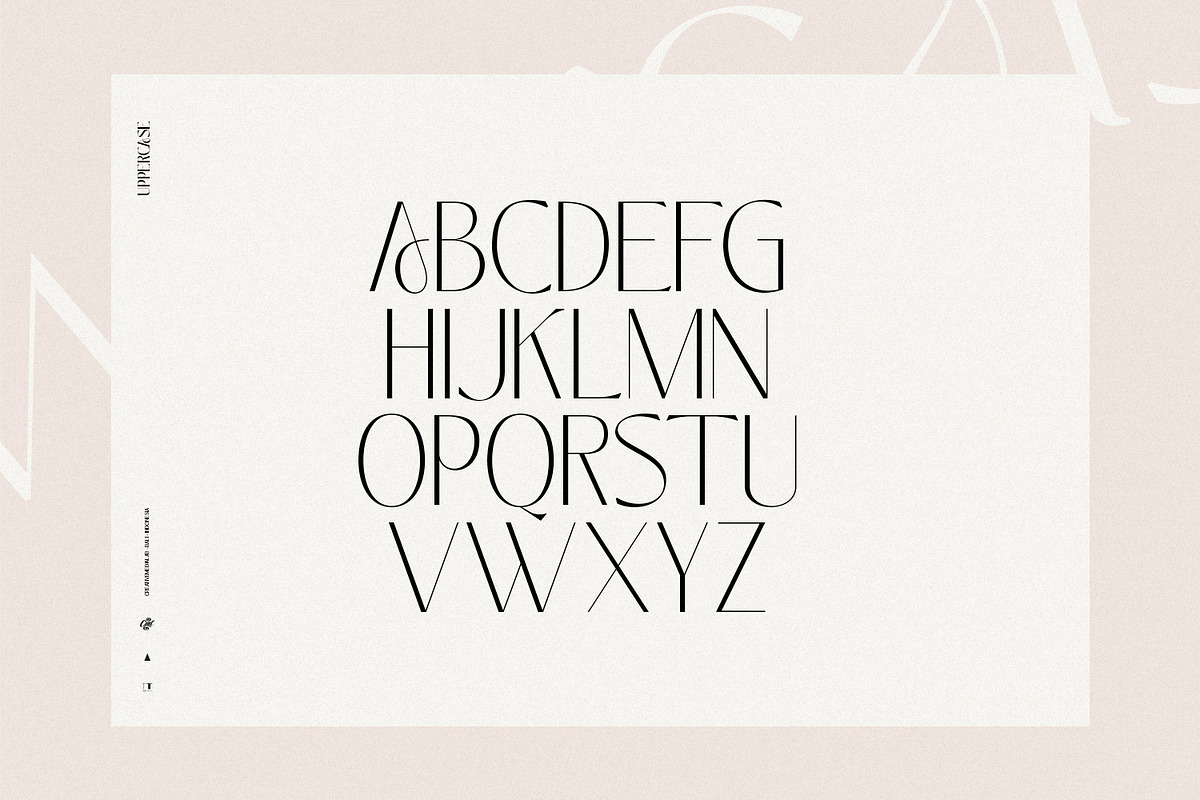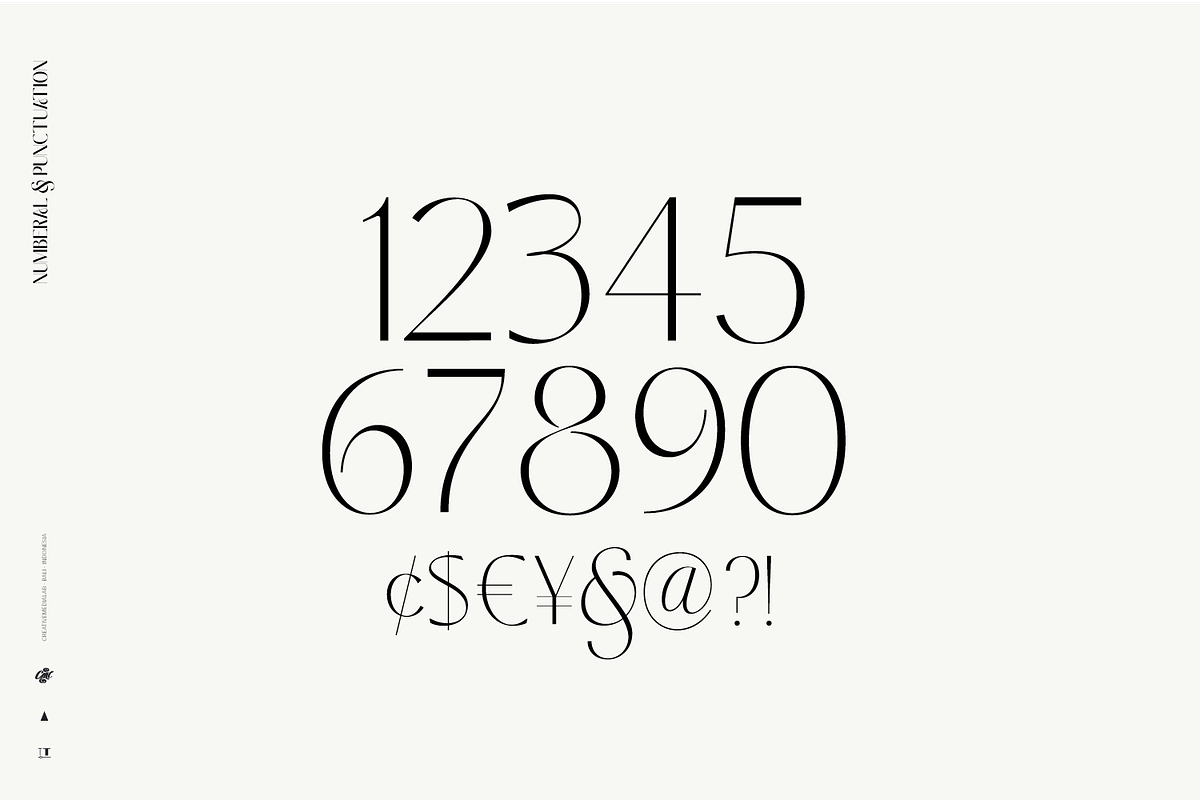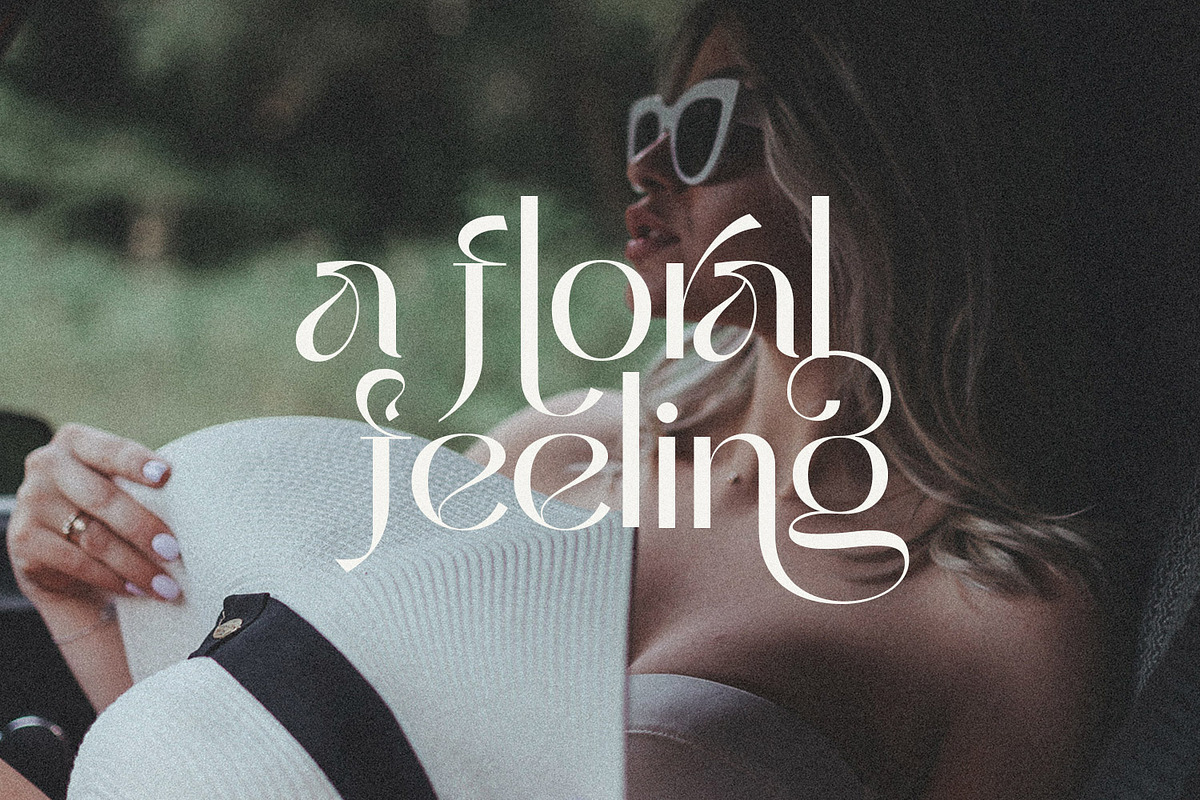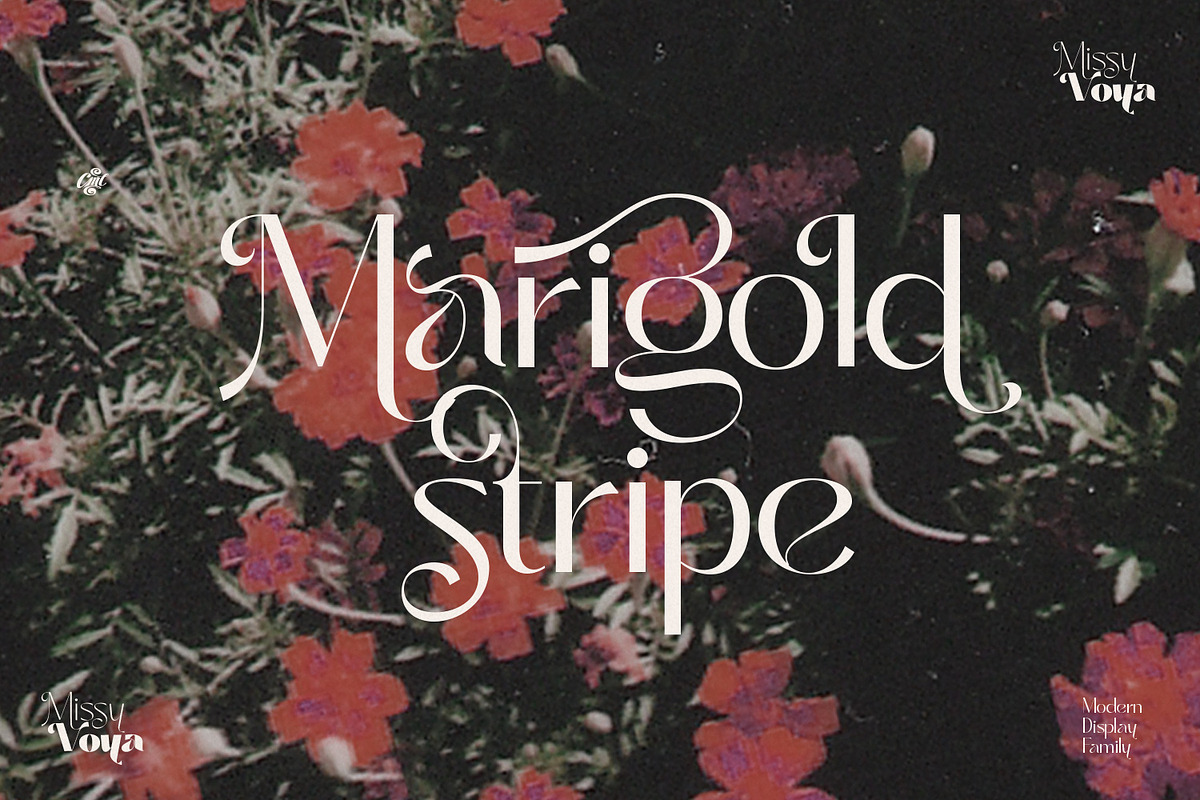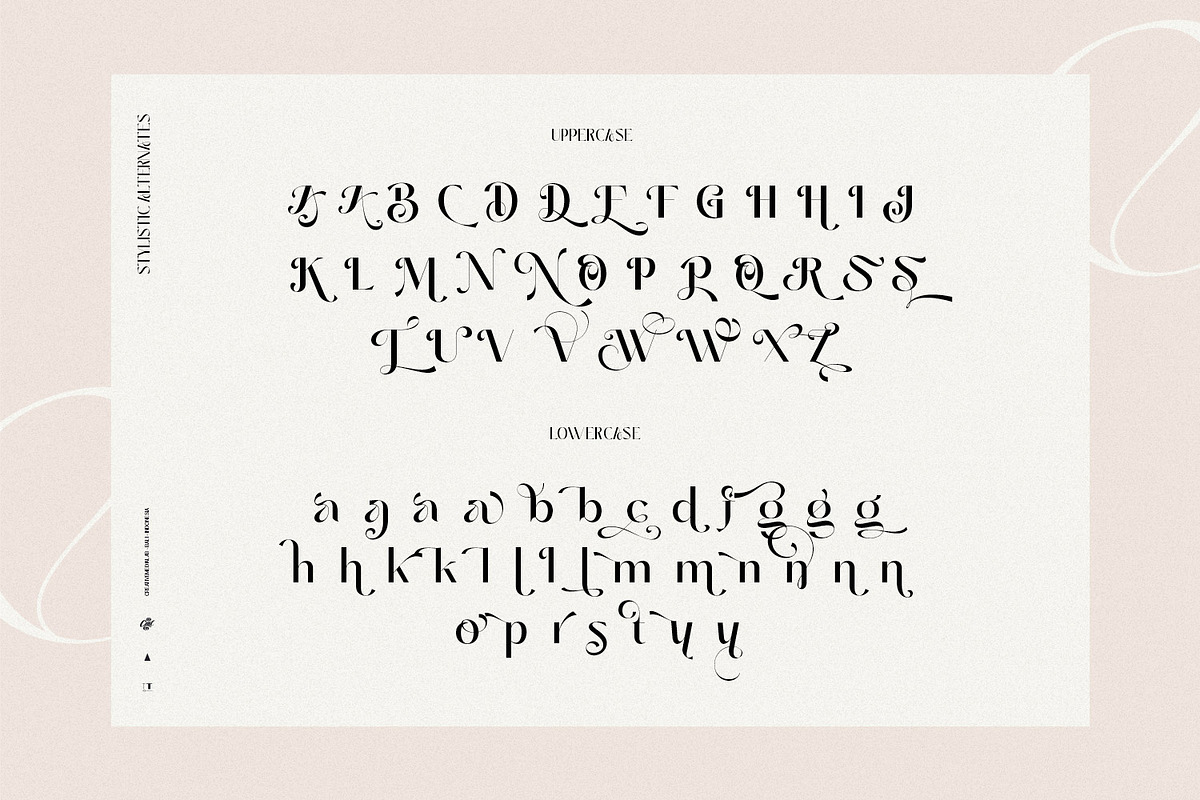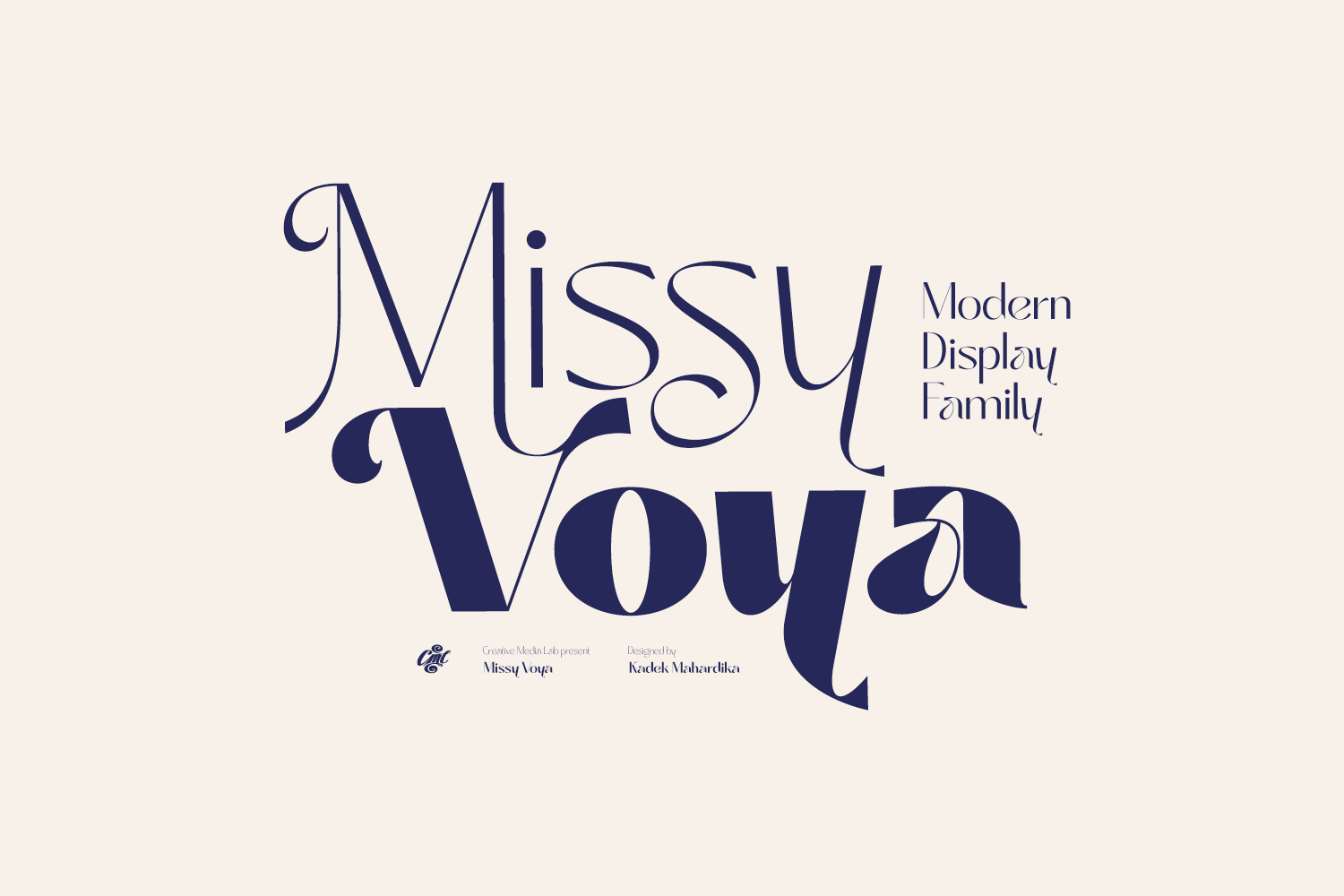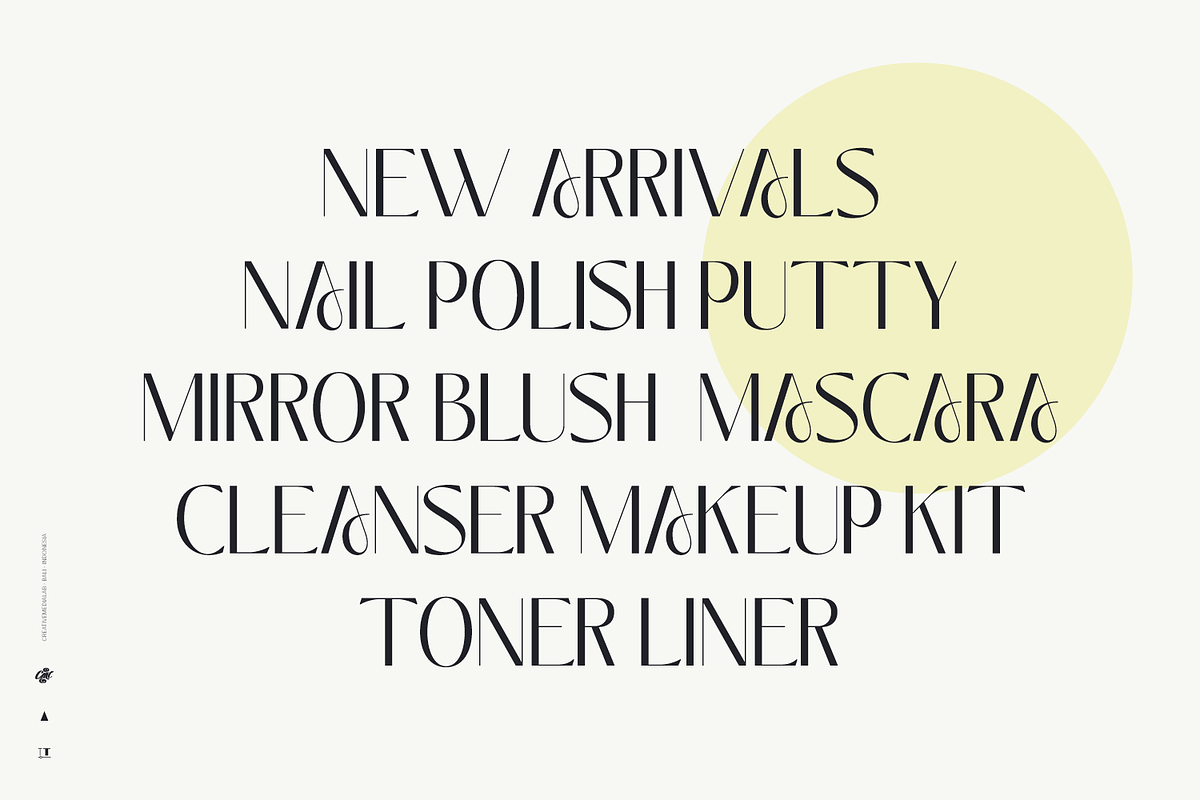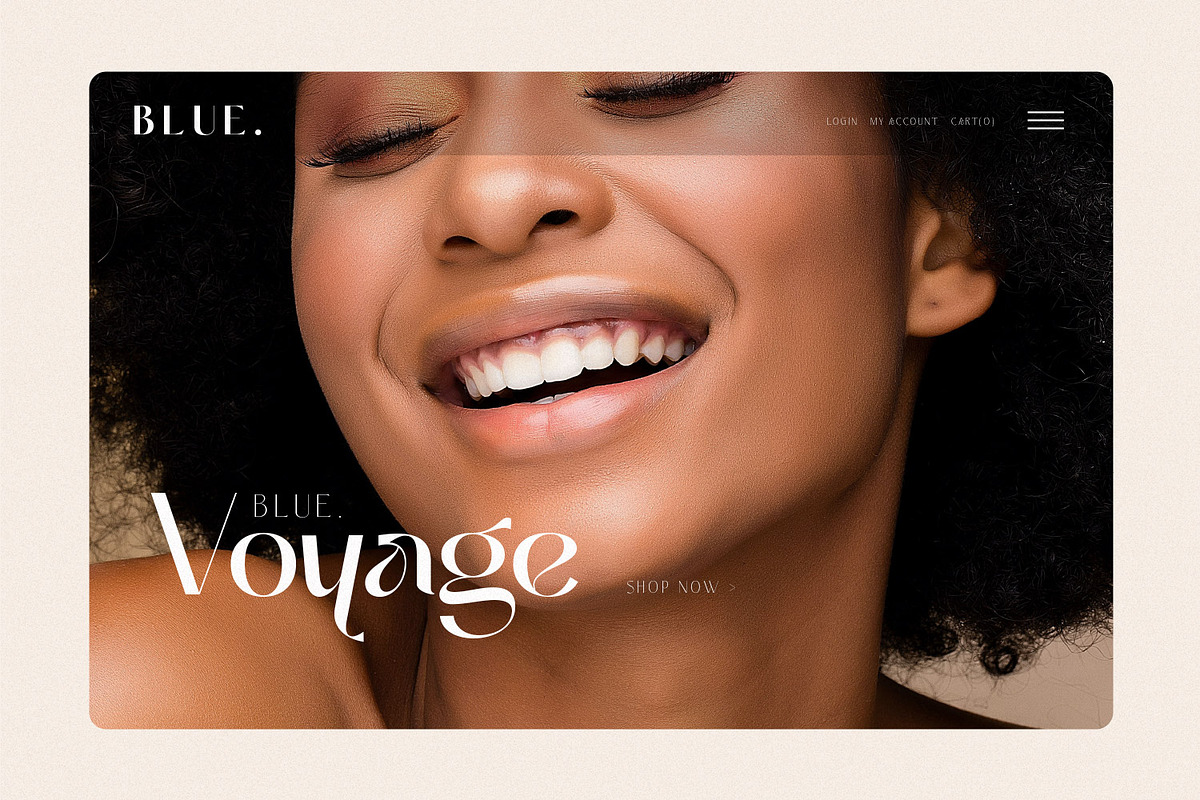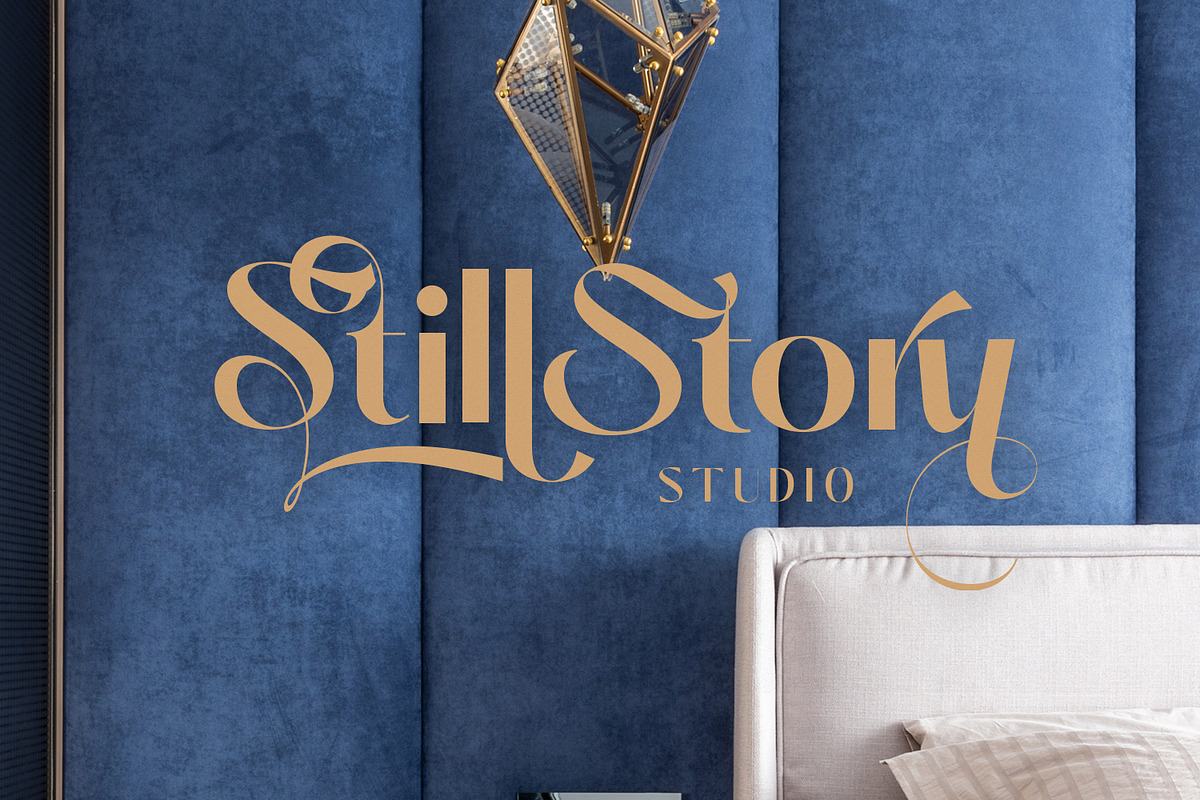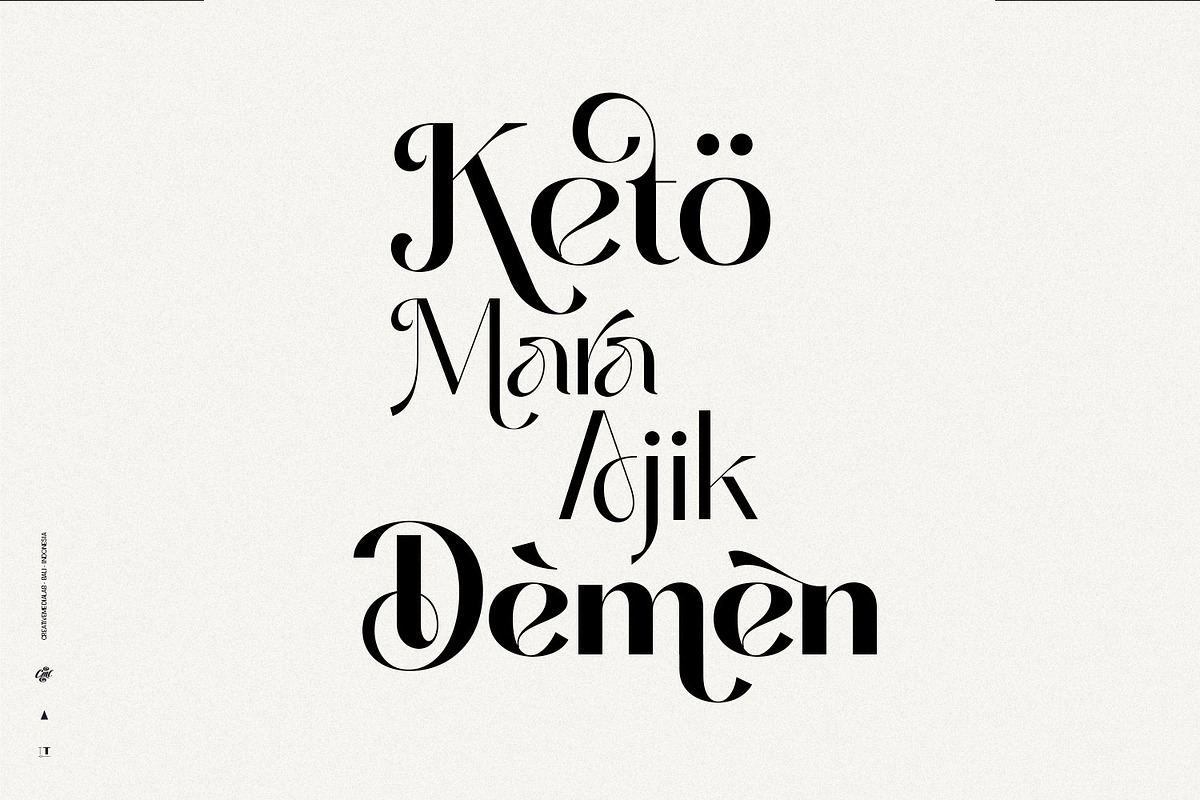
Missy Voya - Modern font family
Introducing Missy Voya.
The unique and fashionable font with tons of alternative characters and ligatures.
This versatile family consists of 8 weights, multilingual support, numbers, and currency symbols.
The straight lines combined with a slight curve make Missy Voya look minimalist and elegant. Try uppercase for a simple look.
Missy Voya is perfect for website header, logo, Instagram story, or fashion-related branding.